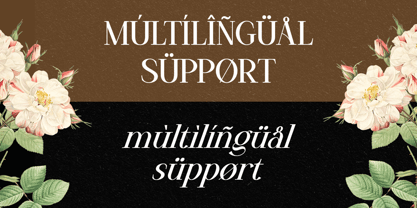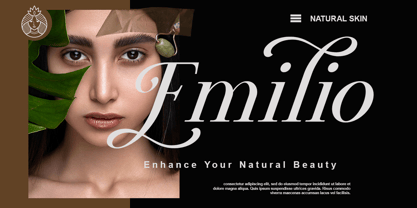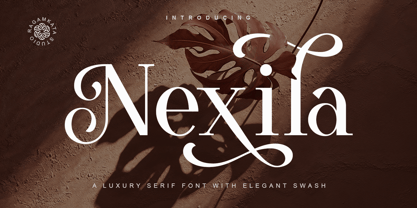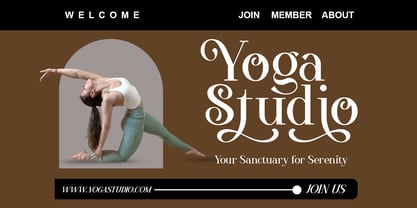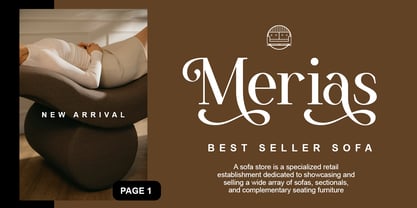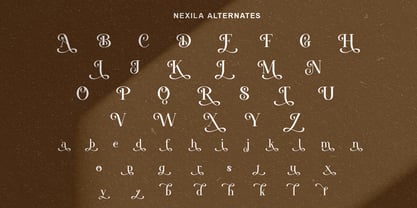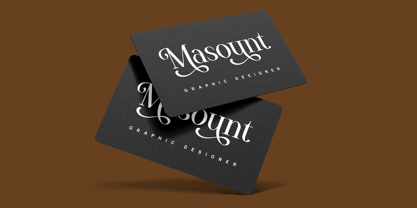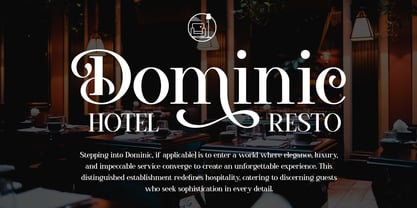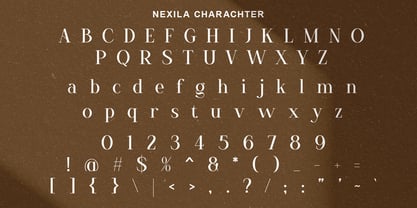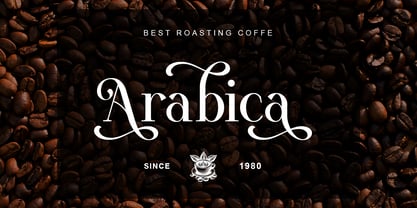
Nexila
The Nexila Font Family was designed by Yogiswhara Dio Prakoso Riadi and published by RagamKata. Nexila contains 2 styles and family package options. More about this family
Nexila is a luxury serif font with elegant swash alternates It has both modern and classy. Create bold, gorgeous headlines and elegant designs with a unique swash flair. Nexila with lines and curved terminals give a sleek, elegant look to logos, holiday cards, wedding invitations, quotes, advertisements and more
- Stylish Alternates
- Multilingual Support